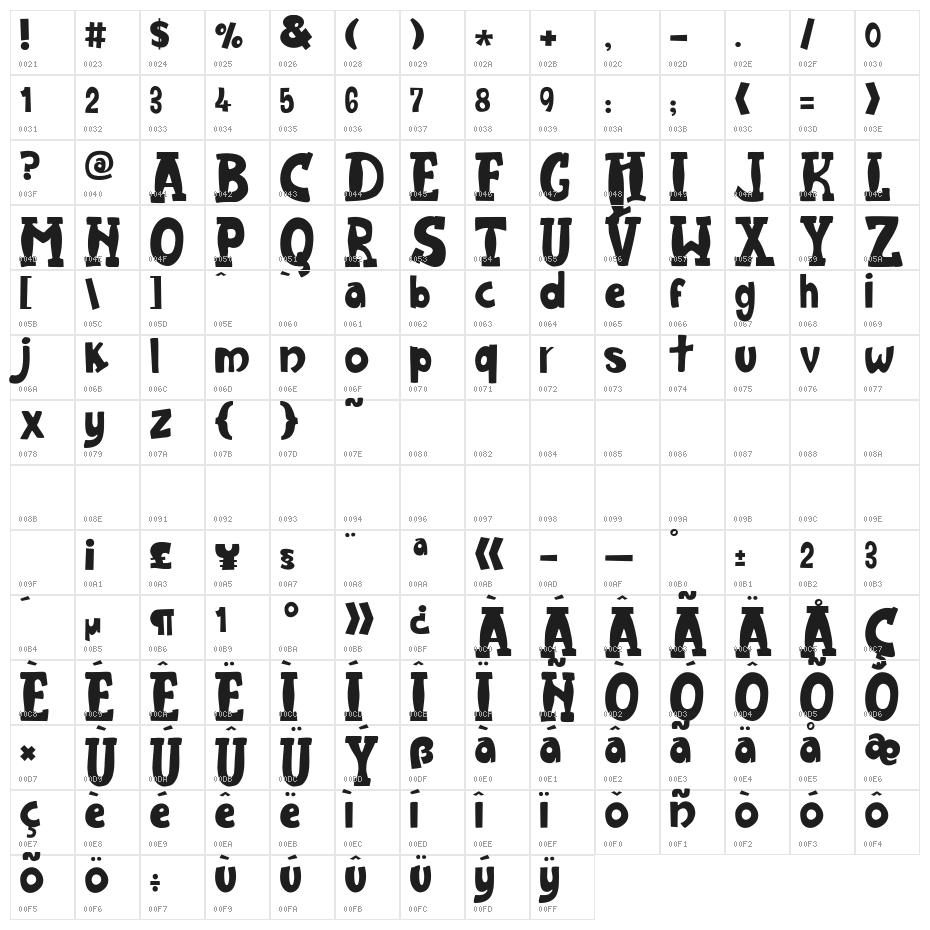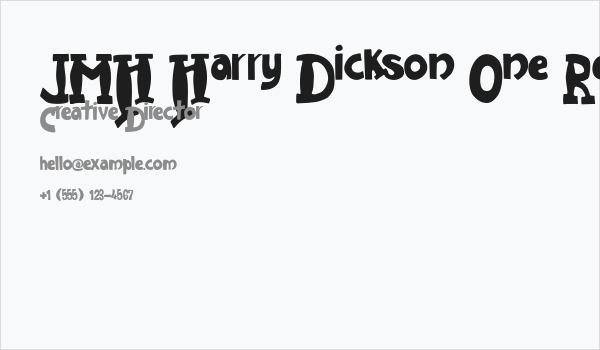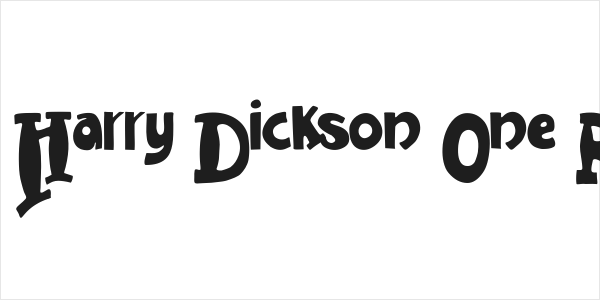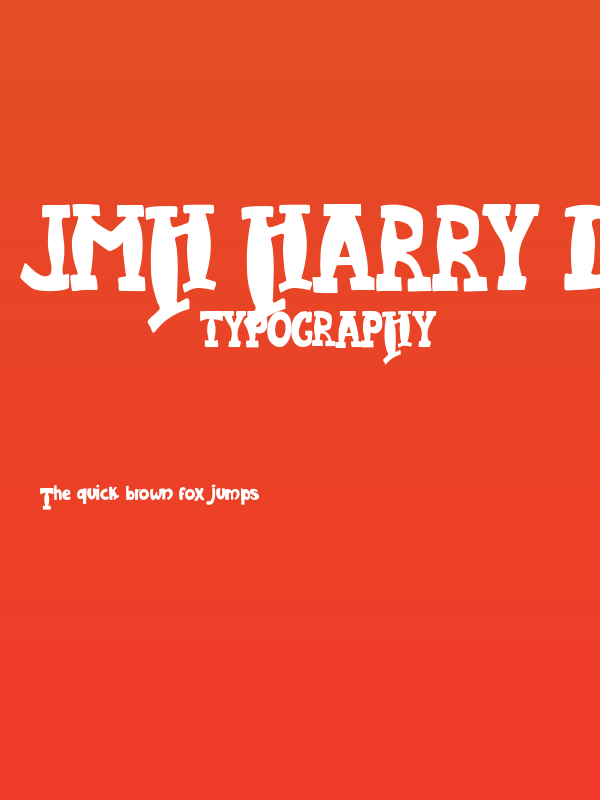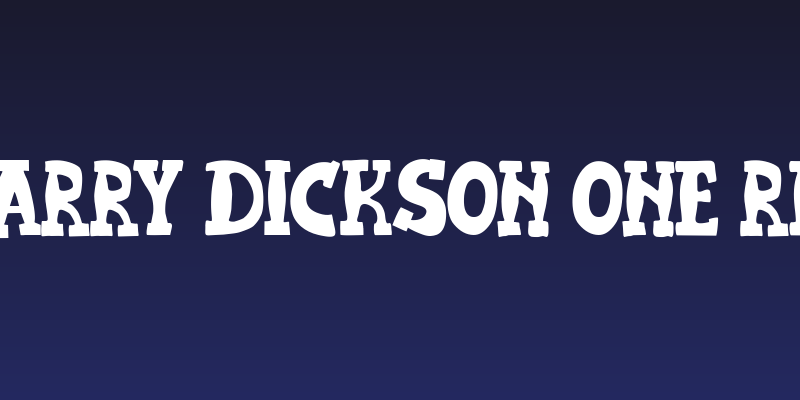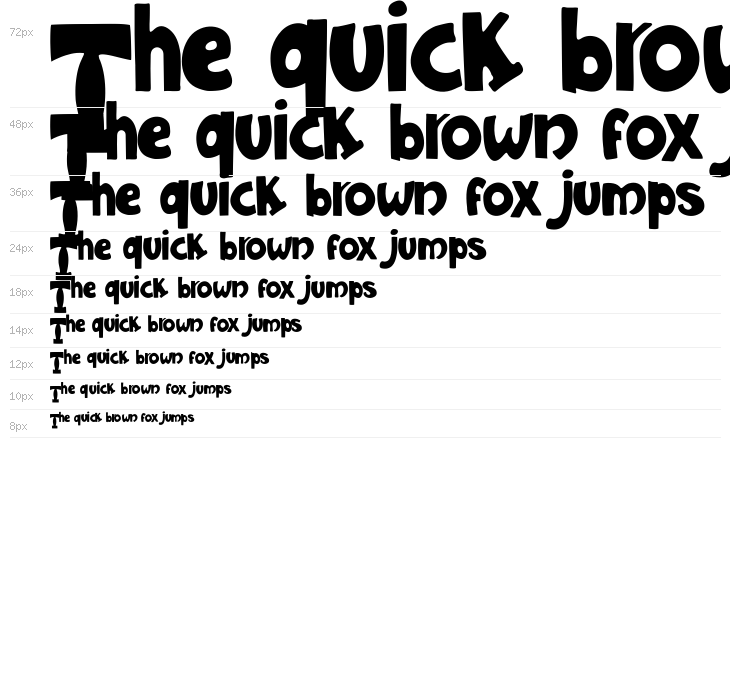
JMH Harry Dickson One Regular Font
JMH Harry Dickson One Regular Description
This font features a bold and playful design with a distinctive, quirky style. The uppercase letters have a strong presence with thick strokes and unique serifs that give them a vintage feel. The lowercase letters maintain the playful nature with rounded edges and a slightly whimsical appearance. Numbers are bold and consistent with the overall style, ensuring readability while maintaining the font's character. Special characters are creatively designed, adding to the font's decorative appeal. This font is ideal for projects that require a fun and engaging typeface.
| Overall Style | Vintage, Decorative |
| Proposed Projects | Ideal for posters, children's books, branding, and any design needing a fun, engaging typeface. |